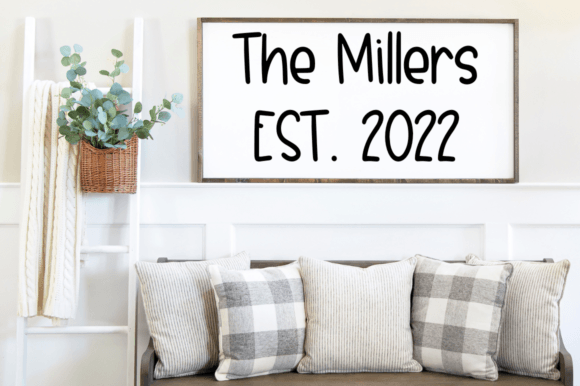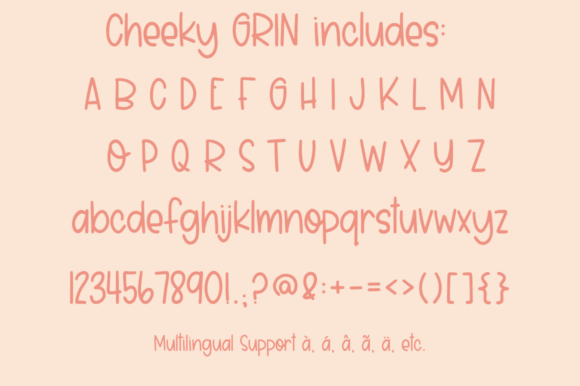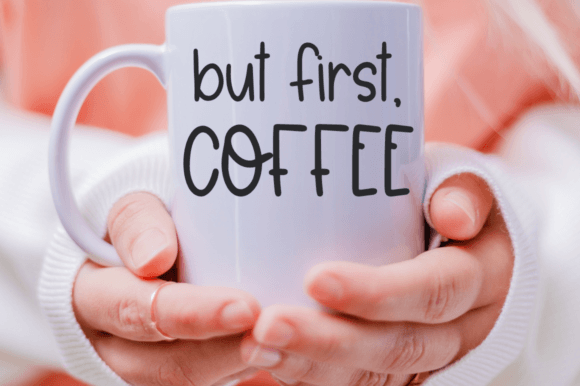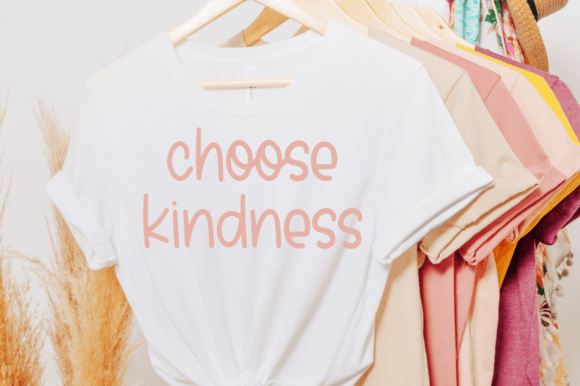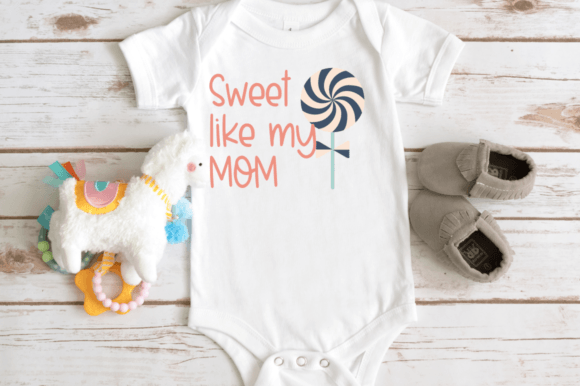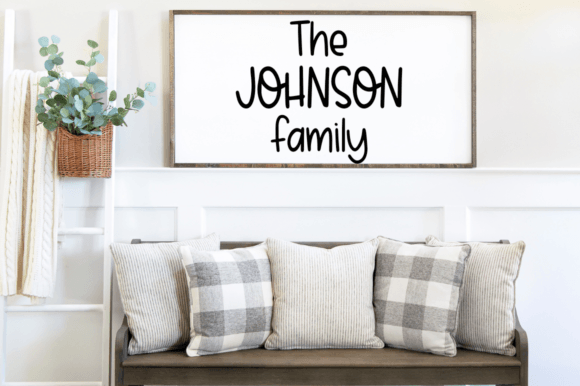
Introducing Cheeky Grin Font: The Ultimate Choice for Fun and Whimsical Designs
Are you a designer, crafter, or DIY enthusiast looking for a font that can add a touch of playfulness and charm to your projects? Look no further than Cheeky Grin Font! This fun monoline handwritten font is perfect for creating a wide range of designs, from logos and greeting cards to t-shirt designs, stickers, social media graphics, and much more.
What Makes Cheeky Grin Font So Special?
Cheeky Grin Font is a unique and versatile font that is designed to bring a smile to your face. Its monoline handwritten style gives it a clean and modern look that’s perfect for creating cute and whimsical designs. The font is easy to read and has a friendly, approachable feel that’s sure to resonate with your audience.
Endless Design Possibilities with Cheeky Grin Font
One of the best things about Cheeky Grin Font is its incredible versatility. This font can be used for a wide range of design projects, including:
- Logos: Create a fun and memorable logo for your business or brand with Cheeky Grin Font.
- Greeting Cards: Add a personal touch to your greeting cards with this charming font.
- T-Shirt Designs: Create eye-catching t-shirt designs that are sure to stand out with Cheeky Grin Font.
- Stickers: Design fun and colorful stickers that are perfect for kids and adults alike.
- Social Media Graphics: Add a touch of whimsy to your social media graphics with this delightful font.
- Crafts: Use Cheeky Grin Font to create custom crafts, such as party decorations, gift tags, and more.
Why Choose Cheeky Grin Font?
So why choose Cheeky Grin Font for your design projects? Here are just a few reasons:
- Easy to Read: Cheeky Grin Font is clear and easy to read, making it perfect for designs that need to communicate a message.
- Fun and Whimsical: This font has a playful, charming quality that’s sure to add a touch of personality to your designs.
- Versatile: Cheeky Grin Font can be used for a wide range of design projects, from logos and branding to crafts and DIY projects.
- High-Quality: This font is designed to be high-quality and professional, making it perfect for commercial use.
Tips for Using Cheeky Grin Font
Here are a few tips for getting the most out of Cheeky Grin Font:
- Experiment with Colors: Cheeky Grin Font looks great in a wide range of colors, so don’t be afraid to experiment and find the perfect hue for your design.
- Play with Sizes: This font can be used at a variety of sizes, from small and delicate to large and bold.
- Add Decorations: Consider adding decorations, such as flowers or stars, to give your design an extra touch of whimsy.
| Font Name | Cheeky Grin Font |
Cheeky Grin Font is a fun and versatile font that’s perfect for designers, crafters, and DIY enthusiasts. With its monoline handwritten style and whimsical charm, this font is sure to add a touch of personality to your designs. Whether you’re creating logos, greeting cards, t-shirt designs, or crafts, Cheeky Grin Font is the perfect choice. So why wait? Download Cheeky Grin Font today and start creating your own fun and whimsical designs!